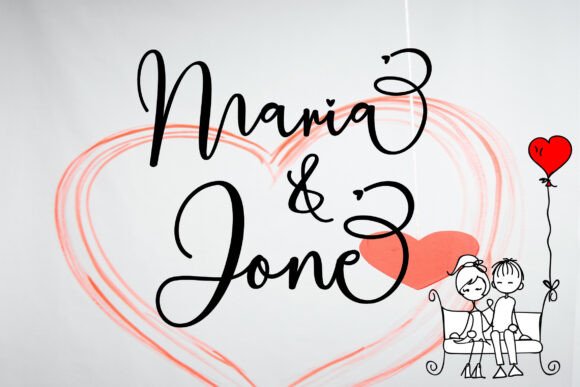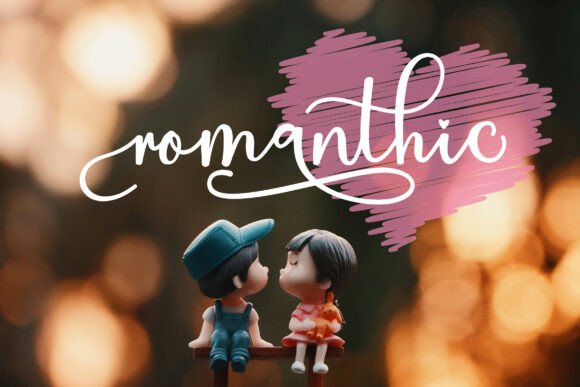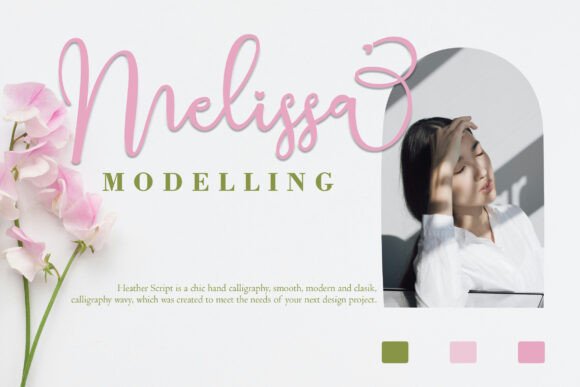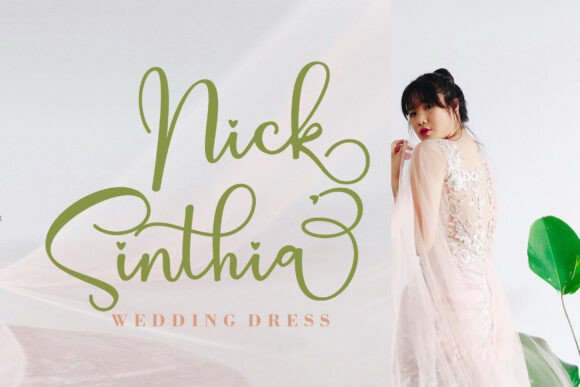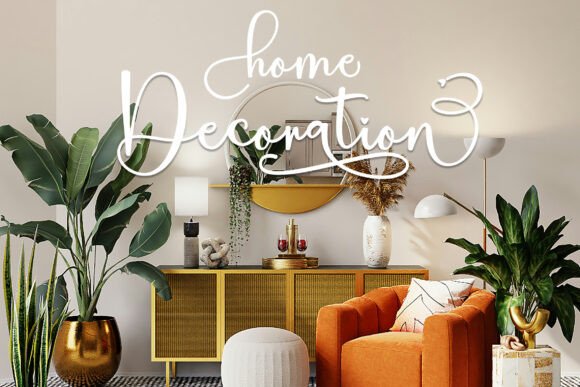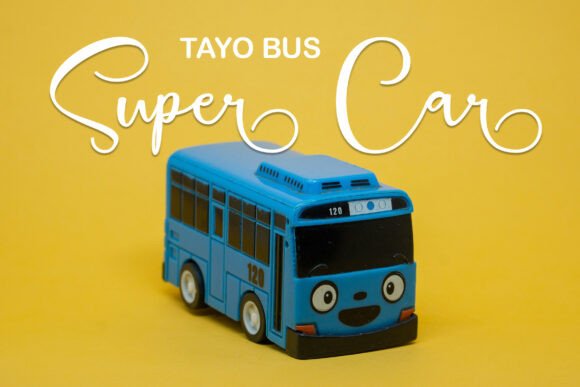
Introducing Heather Font: The Ultimate Modern Classic Handwritten Calligraphy
Are you a designer or crafter looking for the perfect font to elevate your next project? Look no further than Heather Font, a beautiful and versatile handwritten calligraphy that is sure to impress. With its soft and elegant strokes, Heather Font is the ideal choice for a wide range of design applications, from logos and printed quotes to invitations, cards, and product packaging.
The Beauty of Heather Script
Heather Script is a modern and classic handwritten calligraphy that exudes sophistication and charm. Its soft and delicate strokes give it a warm and inviting feel, making it perfect for designs that require a personal touch. Whether you’re looking to create a logo, a quote, or a simple greeting card, Heather Font is the perfect choice.
What Makes Heather Font So Special?
So, what sets Heather Font apart from other fonts? Here are just a few reasons why designers and crafters love working with this beautiful font:
- Unique and Versatile: Heather Font is a one-of-a-kind font that can be used for a wide range of design applications. Its versatility makes it perfect for designers who want to create unique and eye-catching designs.
- Soft and Elegant: The soft and elegant strokes of Heather Font give it a warm and inviting feel. This makes it perfect for designs that require a personal touch, such as invitations, cards, and quotes.
- Easy to Read: Despite its elegant and cursive nature, Heather Font is surprisingly easy to read. This makes it perfect for designs that require a clear and legible font, such as logos, headers, and product packaging.
- Highly Customizable: Heather Font can be easily customized to fit your design needs. Whether you want to change the color, size, or style, this font is highly adaptable and can be tailored to suit your design vision.
Design Ideas with Heather Font
Heather Font is a versatile font that can be used for a wide range of design applications. Here are just a few ideas to get you started:
- Logos: Create a beautiful and elegant logo for your business or brand using Heather Font.
- Printed Quotes: Add a touch of sophistication to your printed quotes with Heather Font.
- Invitations: Create stunning invitations for weddings, parties, and other special occasions using Heather Font.
- Cards: Design beautiful greeting cards for birthdays, holidays, and other special occasions with Heather Font.
- Product Packaging: Add a personal touch to your product packaging with Heather Font.
- Headers: Use Heather Font to create elegant and eye-catching headers for your website, blog, or social media channels.
Tips for Working with Heather Font
Here are a few tips for working with Heather Font:
- Experiment with Colors: Heather Font looks great in a variety of colors. Experiment with different colors to find the one that works best for your design.
- Play with Sizes: Heather Font can be used in a range of sizes. Experiment with different sizes to find the one that works best for your design.
- Mix and Match: Don’t be afraid to mix and match Heather Font with other fonts to create a unique and eye-catching design.
Heather Font is a beautiful and versatile handwritten calligraphy that is perfect for designers and crafters. With its soft and elegant strokes, this font is ideal for a wide range of design applications, from logos and printed quotes to invitations, cards, and product packaging. Whether you’re looking to create a simple design or a complex one, Heather Font is the perfect choice. So why wait? Download Heather Font today and start creating stunning designs that will leave a lasting impression!